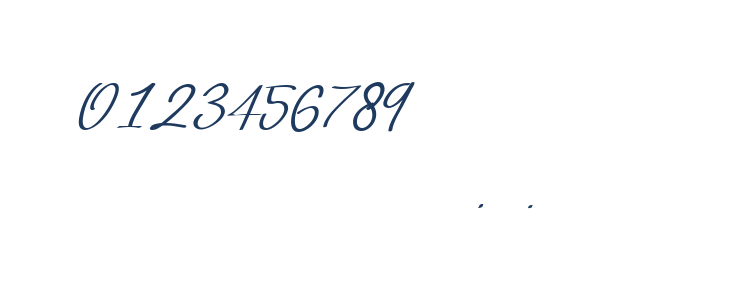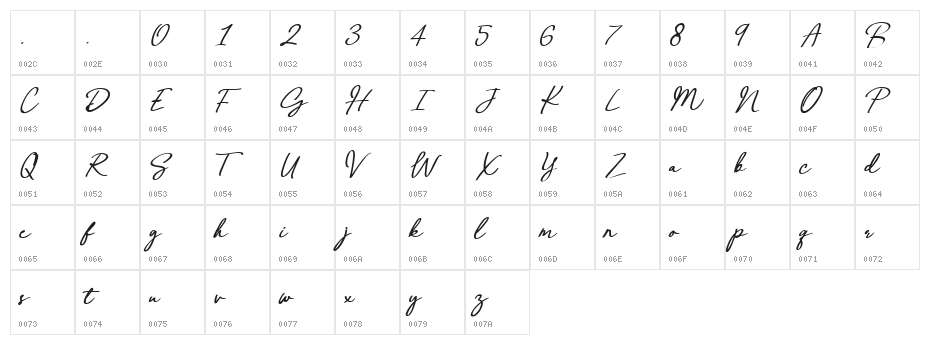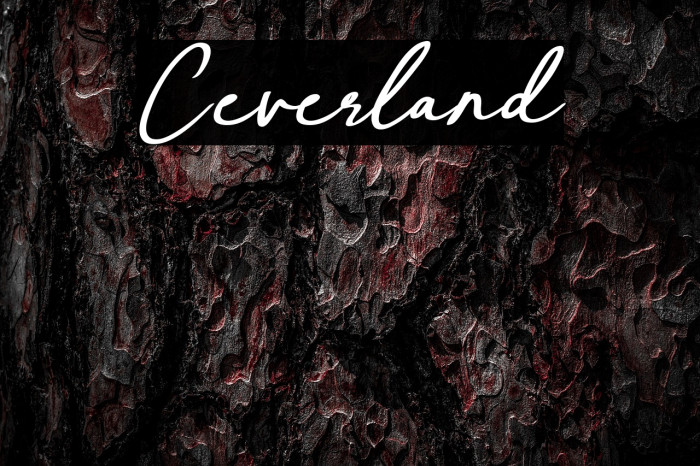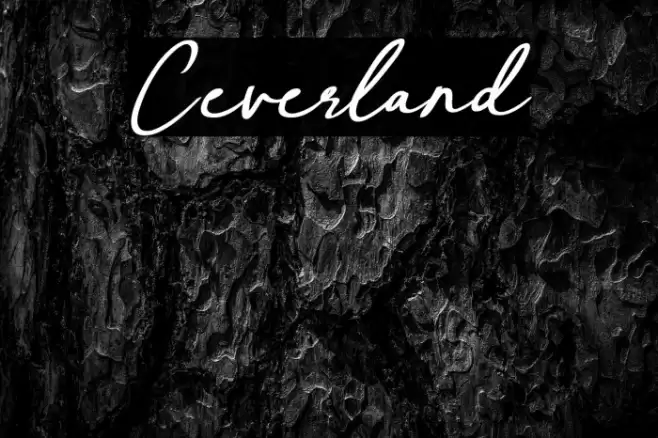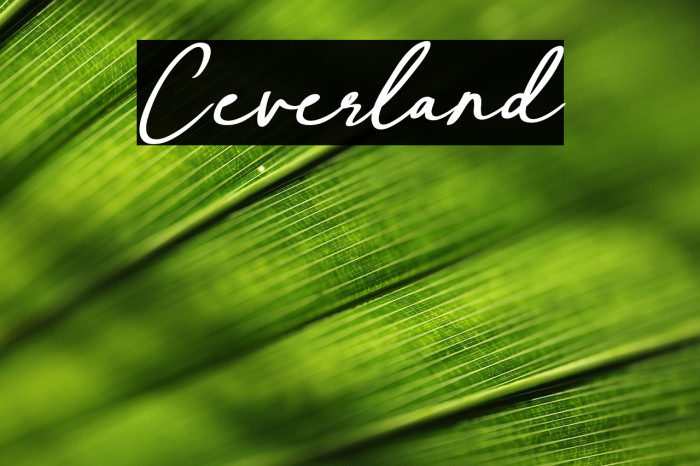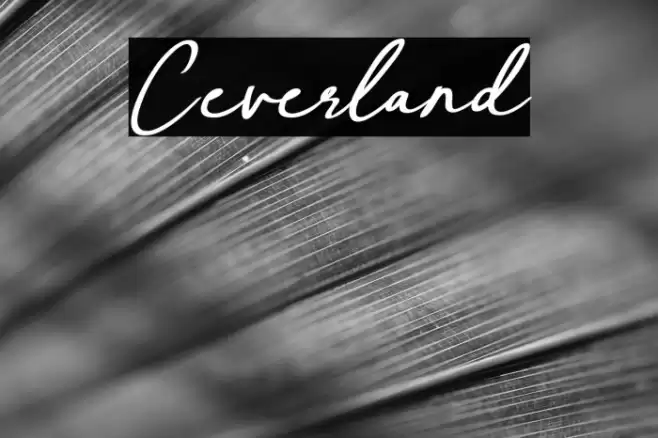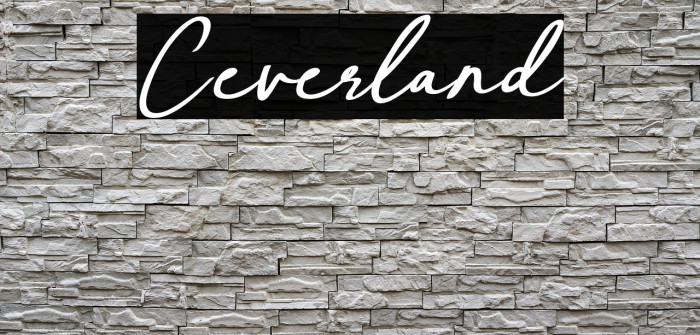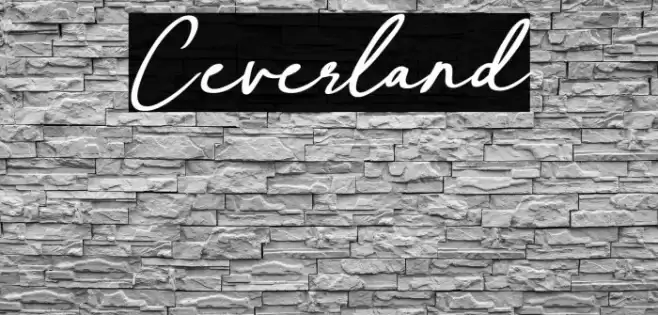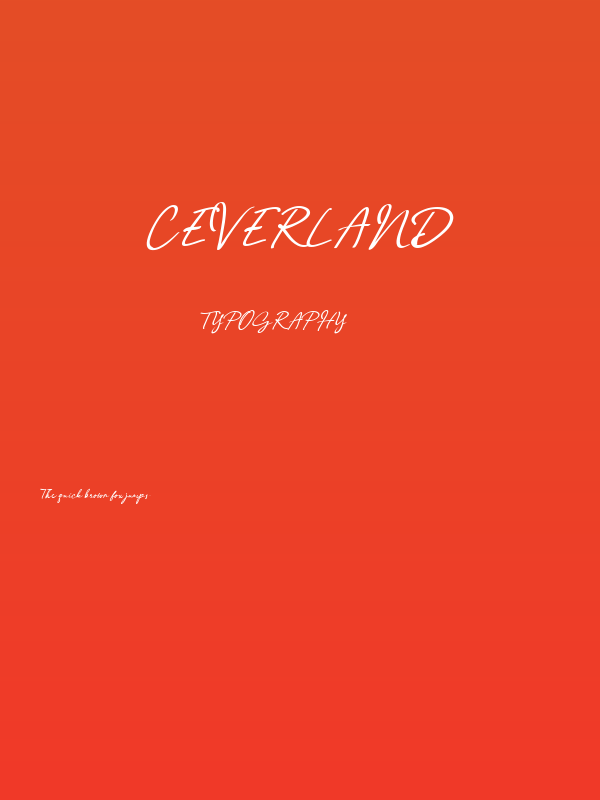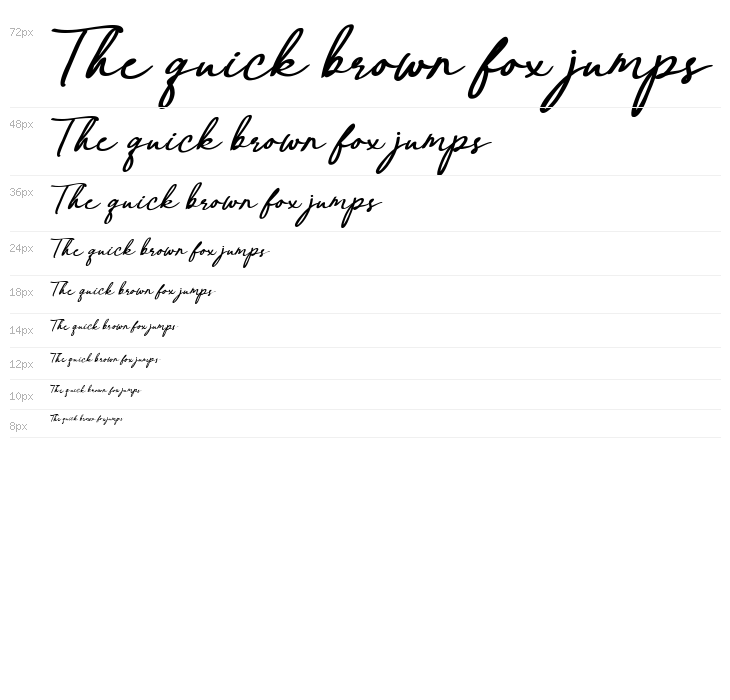
Ceverland Font
Ceverland Description
This font exudes a stylish and elegant script style, characterized by its fluid and cursive letterforms. The uppercase letters are tall and graceful, with sweeping curves and a slight slant that adds a dynamic feel. The lowercase letters maintain a consistent flow, enhancing readability while retaining a sophisticated appearance. The numerals are well-integrated, matching the overall aesthetic with their smooth lines and balanced proportions. This font is perfect for projects that require a touch of elegance and personality, such as wedding invitations, branding, and high-end product packaging.
| Overall Style | Elegant, Sophisticated |
| Use Case | Headlines, Invitations, Branding |
| Proposed Projects | Wedding invitations, branding, high-end product packaging, personal stationery. |